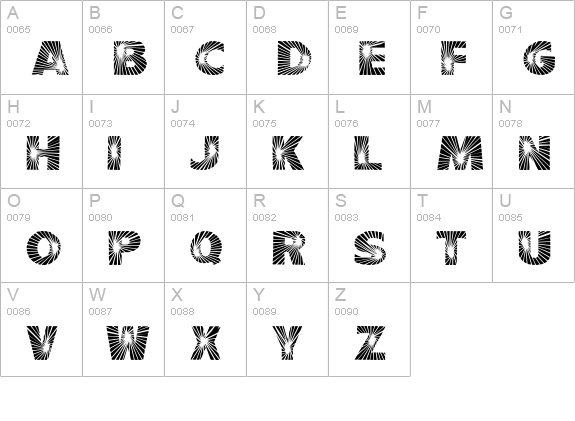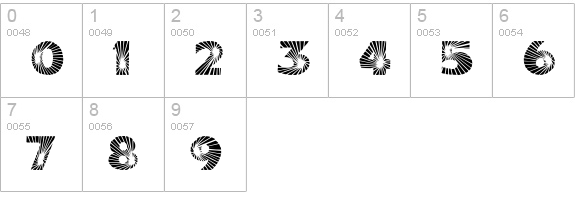
Starburst Font Details
Introducing Starburst font - a dazzling and captivating display typeface that will light up your designs like a burst of stardust. This font is a true gem, radiating a sense of energy and vibrancy that will instantly captivate your audience. With its unique and eye-catching letterforms, Starburst font adds a touch of excitement to any project. Whether you're designing a poster, a logo, or even a social media graphic, this font will help you stand out from the crowd and leave a lasting impression. The beauty of Starburst font lies not only in its striking appearance but also in its versatility. It effortlessly adapts to various design styles, from modern and edgy to elegant and sophisticated. This font is truly a chameleon, making it a go-to choice for designers seeking to create dynamic and impactful visuals. But what sets Starburst font apart from other typefaces? Well, aside from its mesmerizing aesthetics, it offers something that every designer loves - it's free! Yes, you heard it right. Starburst font is freely available to download at FontsMarket.com. So why wait? Embrace the brilliance of Starburst font and unleash your creativity to new heights. Download this remarkable typeface today and let it illuminate your designs with its celestial charm.